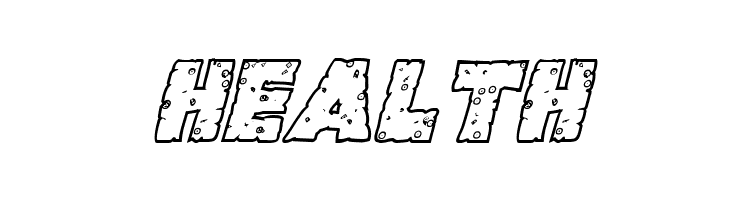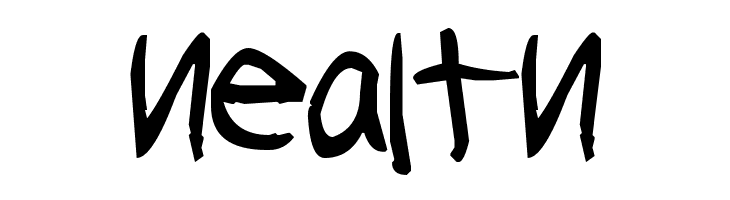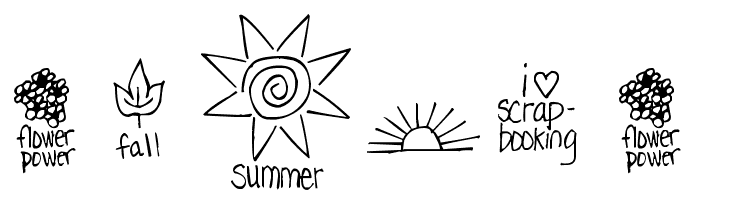
A bold, rugged font with a distressed, textured appearance.
A bold, distressed, italic font with a rugged, military-inspired design.
A bold, rugged font with a shadow effect and italic slant, featuring a textured, stone-like appearance.
A bold, distressed font with a rugged, military-inspired design.
A bold, distressed, expanded italic font with a rugged and dynamic style.
A bold, italicized decorative font with a riddled texture and adventurous style.
A bold, distressed font with a rugged, riddled appearance.
A playful, bold handwritten font with an energetic and casual style.
A playful doodle font with seasonal and thematic illustrations.